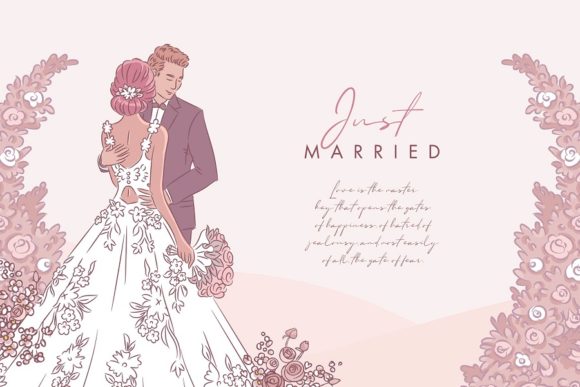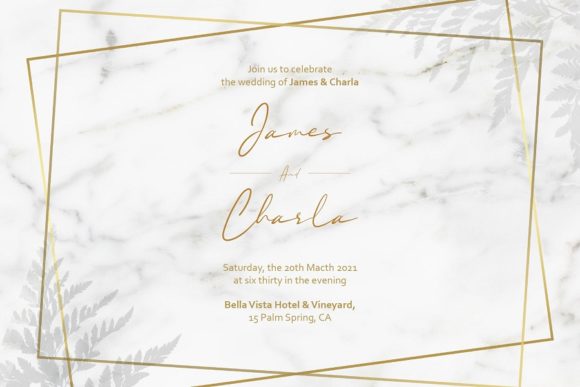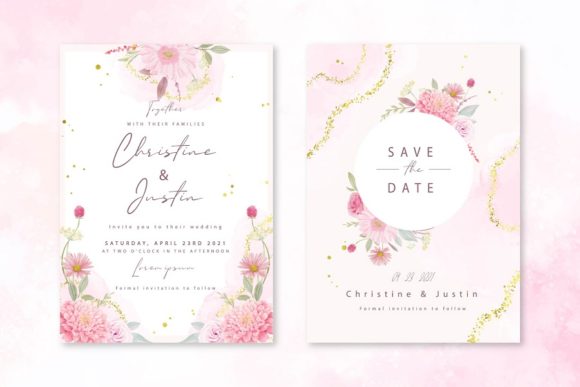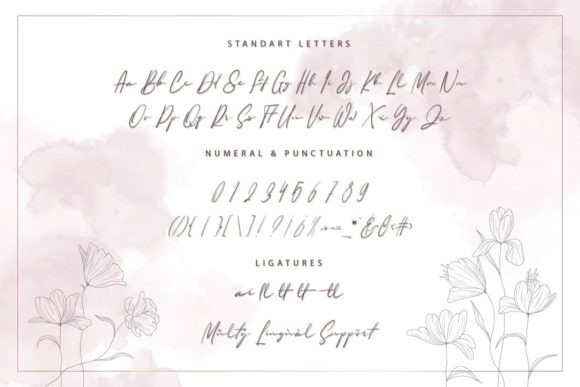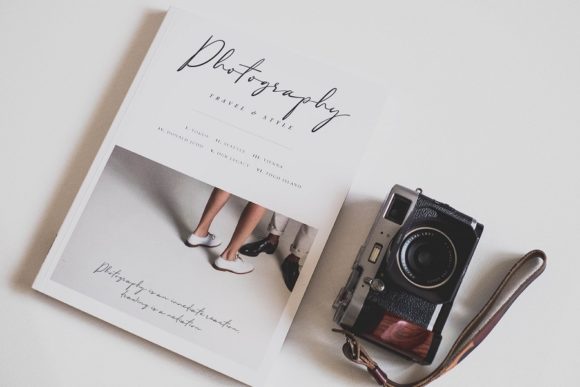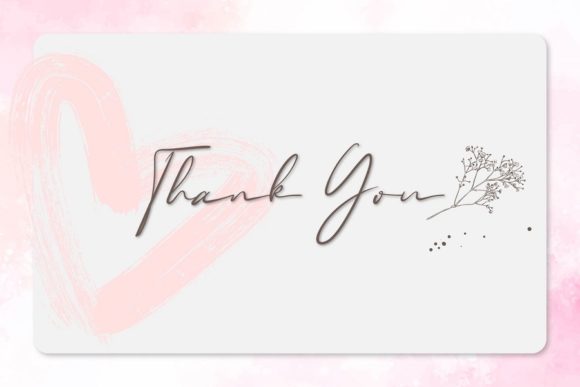
Bastyan Font: Elevate Your Designs with Elegance and Personality
In the world of typography, fonts play a crucial role in conveying the tone and aesthetic of a design. For those seeking a unique and elegant handwritten font, Bastyan is an exceptional choice. This beautiful font is perfect for adding a personalized touch to various designs, including wedding invitations, thank you cards, weddings, greeting cards, logos, and more.
The Charm of Bastyan Font
Bastyan Font stands out with its distinctive, handcrafted style that exudes elegance and sophistication. Its unique character set makes it an ideal selection for designers and crafters looking to infuse their projects with a personal and warm feel. Whether you’re creating bespoke wedding stationery, elegant logos, or heartfelt greeting cards, Bastyan Font is sure to make your designs shine.
One of the key advantages of Bastyan Font is its versatility. It can be beautifully incorporated into a wide range of design projects, including:
- Wedding Invitations: Make your wedding stationery truly special with Bastyan Font, adding an elegant and romantic touch to your big day’s announcements.
- Thank You Cards: Express your gratitude in style with personalized thank you cards that feature the charming Bastyan Font.
- Greeting Cards: Whether it’s a birthday, anniversary, or holiday greeting, Bastyan Font brings a warm and personalized feel to your cards.
- Logos: For businesses looking for a distinctive brand identity, Bastyan Font can help create a logo that is both elegant and memorable.
Why Choose Bastyan Font?
There are several reasons why Bastyan Font has become a go-to choice for designers and crafters:
- Unique and Elegant: Its handcrafted nature gives it a unique and elegant appearance that sets it apart from more generic fonts.
- Personalized Style: Bastyan Font adds a personal touch to your designs, making them more engaging and impactful.
- Easy to Read: Despite its elegant and handwritten nature, Bastyan Font remains clear and easy to read, making it practical for a variety of uses.
- High Versatility: Its adaptability to different design contexts makes Bastyan Font a valuable asset in any designer’s toolkit.
Tips for Using Bastyan Font
To make the most of Bastyan Font, consider the following tips:
- Pair with Complementary Fonts: For optimal results, pair Bastyan Font with fonts that complement its elegance without overpowering it.
- Adjust Letter Spacing: Fine-tune the letter spacing to enhance readability and aesthetic appeal, especially in larger bodies of text.
- Experiment with Colors: While Bastyan Font looks stunning in classic black and white, don’t be afraid to experiment with colors that match the mood of your design.
Bastyan Font is a beautiful, elegant, and versatile handwritten font that can elevate your designs with its unique charm. Whether you’re a professional designer or a crafty DIY enthusiast, Bastyan Font offers the perfect blend of style, elegance, and personality. By incorporating Bastyan Font into your projects, you can create stunning and memorable designs that truly stand out. Discover the difference Bastyan Font can make in your next design venture.